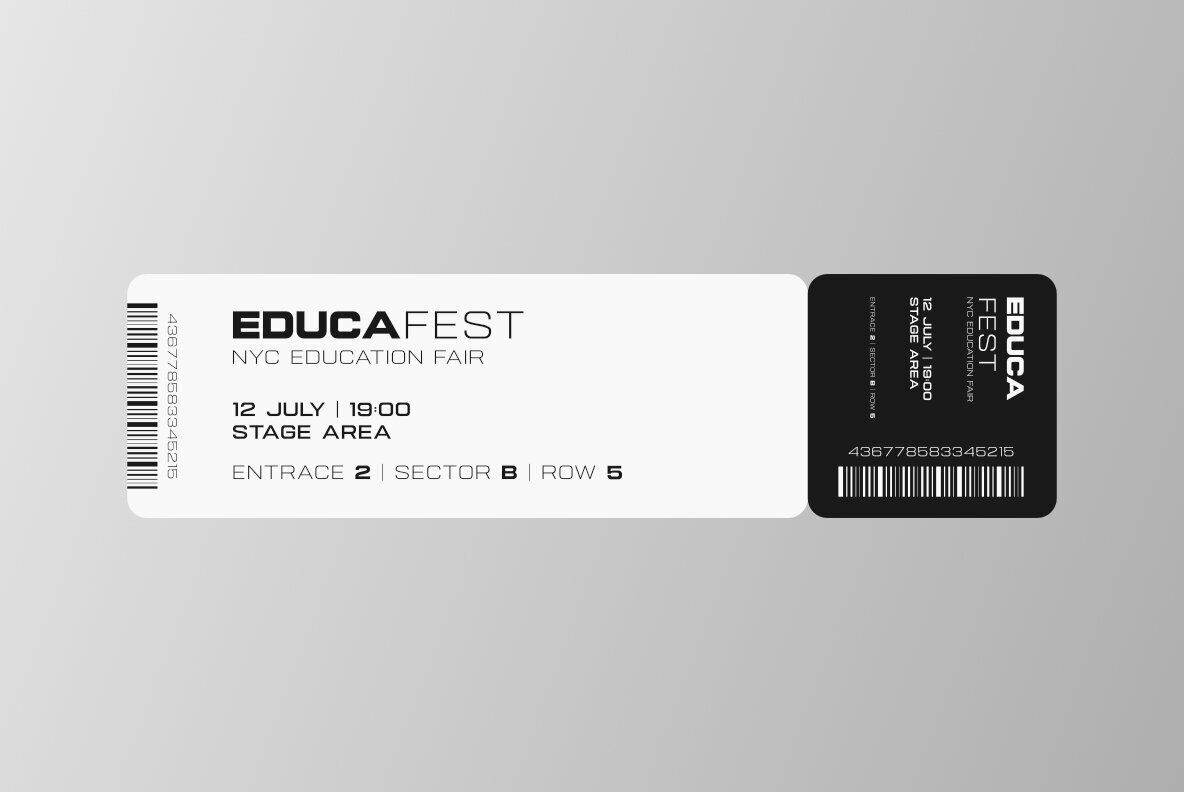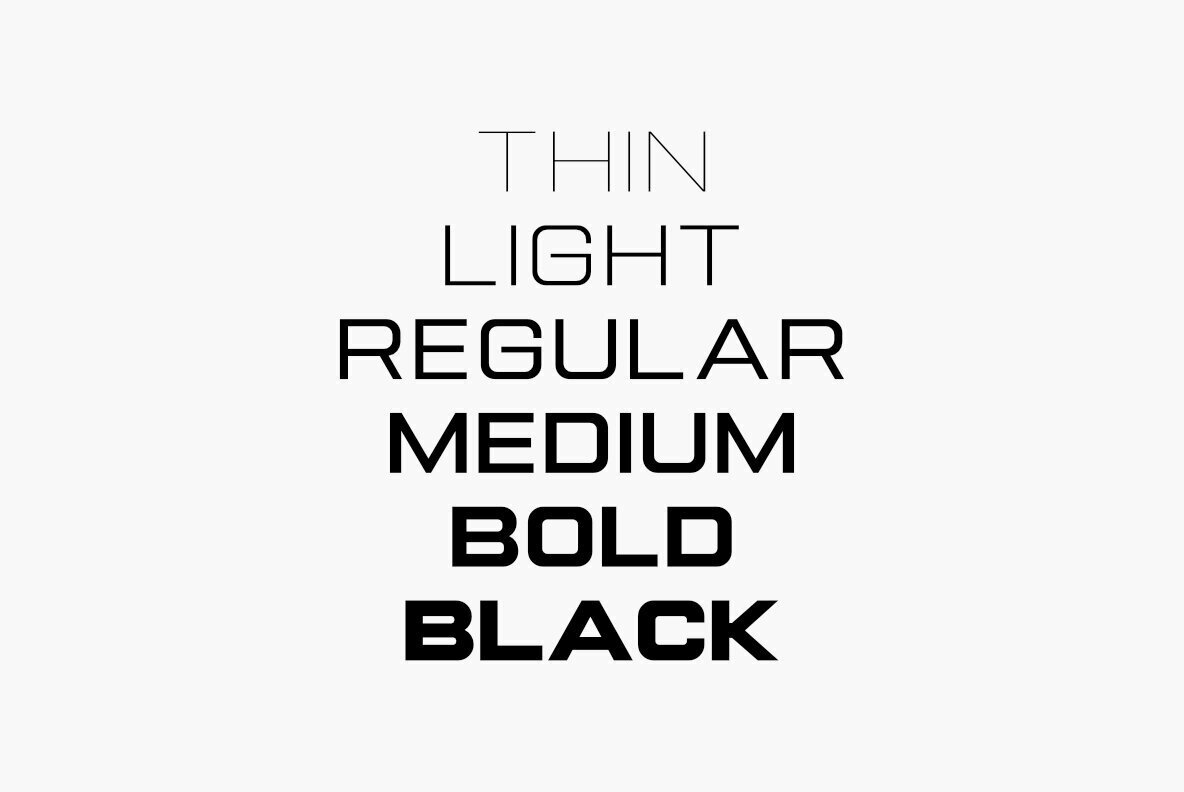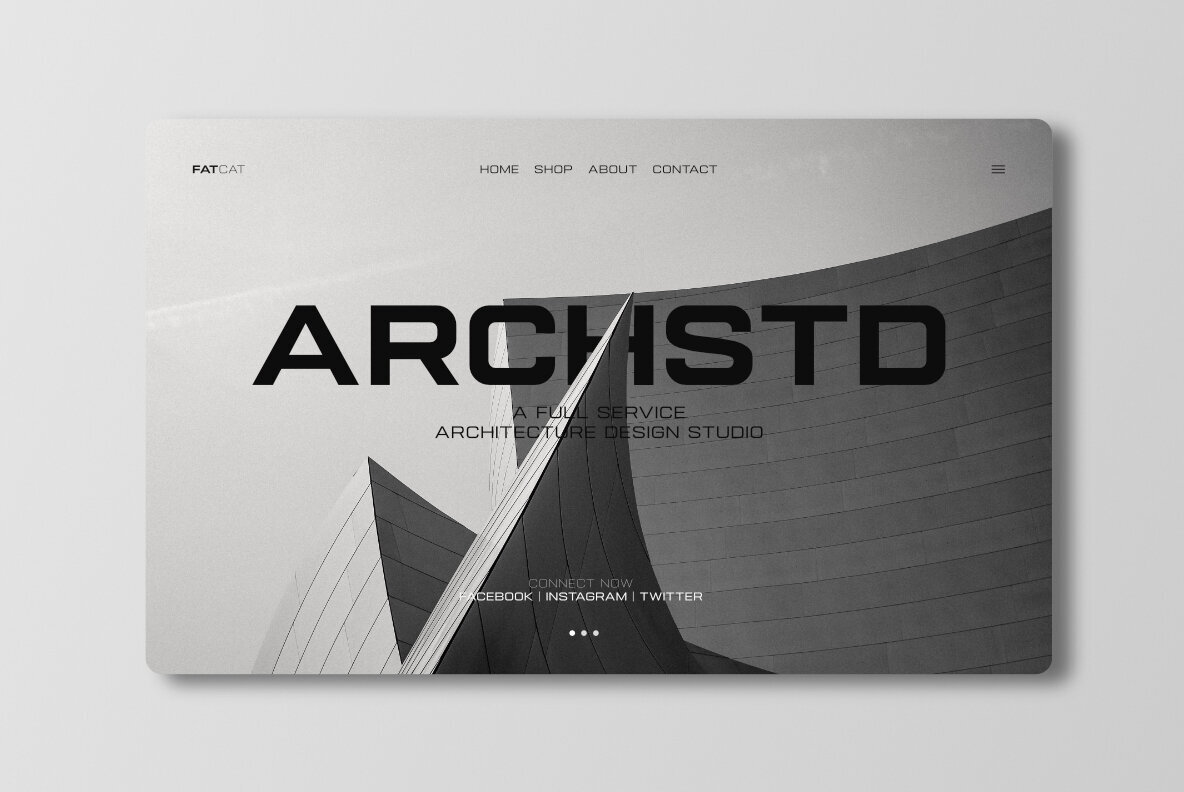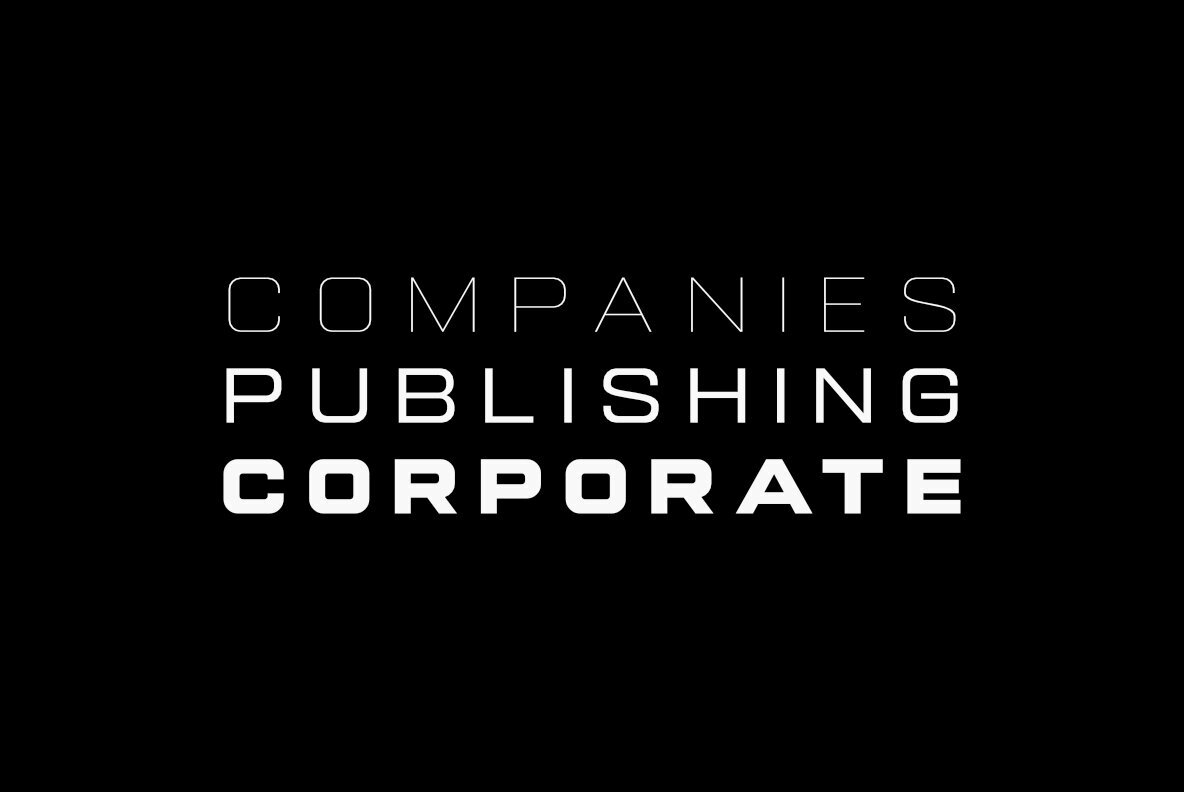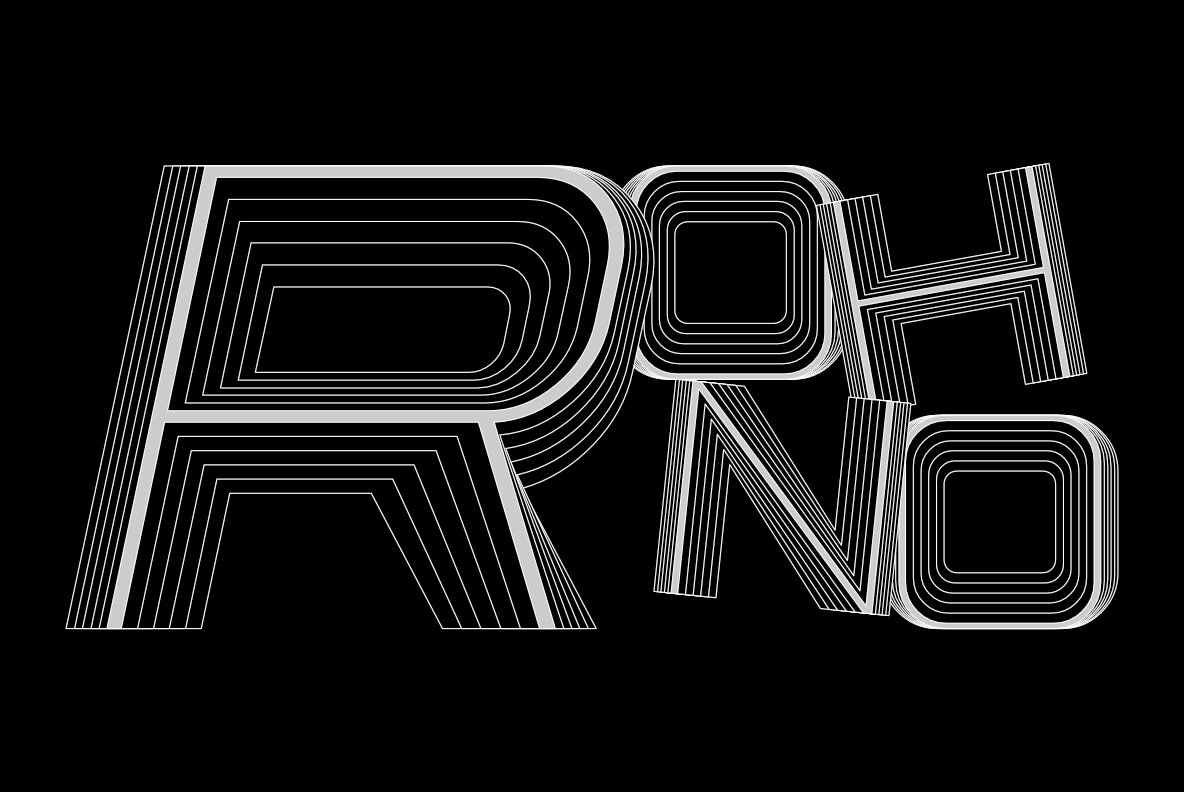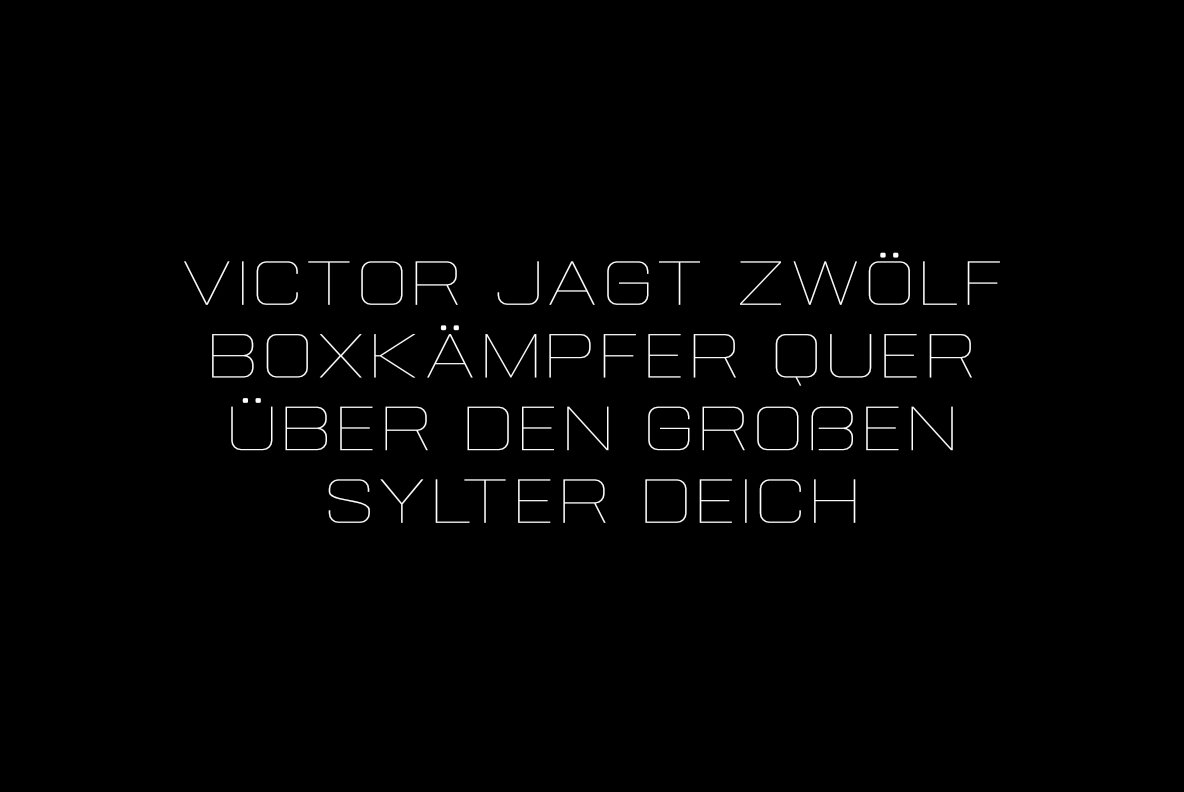
GEMSBUCK 01 Font
GEMSBUCK 01 is a super bold and heavy display extended font family. The font is suitable for any branding project like logo, t-shirt printing, sporting design, and many more. It will look assertive in a wide range of contexts.